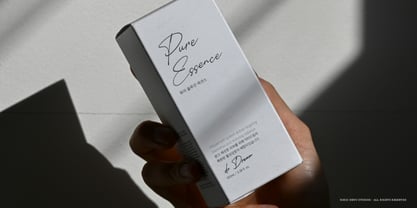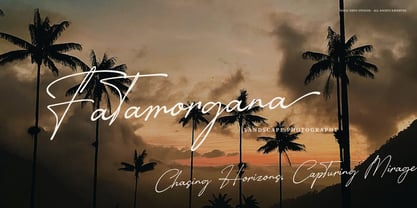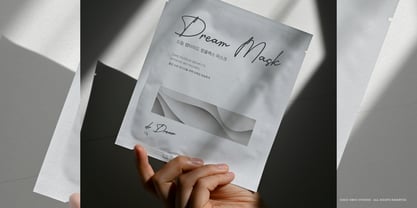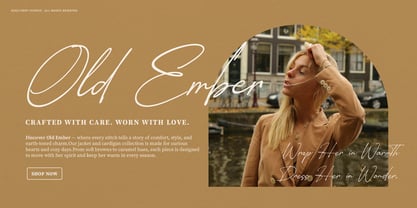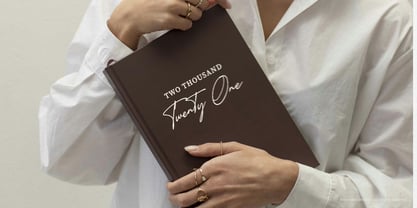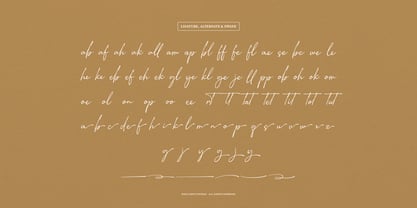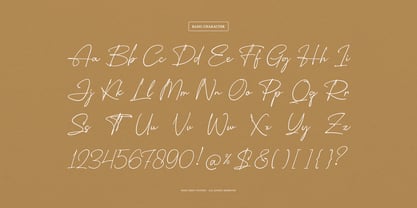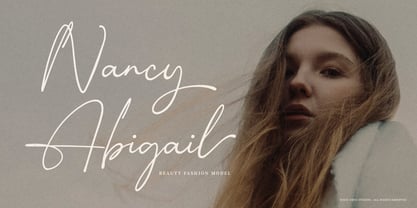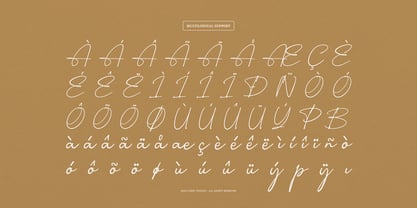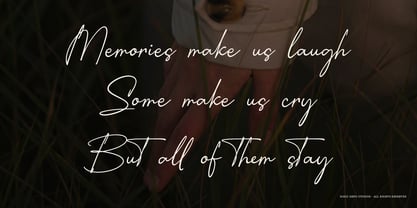
Defraney
by Denustudio
The Defraney Font Family was designed by Dede Nugraha and published by Denustudio. Defraney contains 2 styles and family package options. More about this family
Defraney | Handwritten Signature, from Denustudios, suitable for any projects such as: logos, branding projects, homeware designs, product packaging, mugs, quotes, posters, shopping bags, t-shirts, book covers, name card, invitation cards, greeting cards, label, photography, watermark, special events, and all your other lovely projects that need Handwritten Signature a taste.
• Regular and Italic
• Standard glyphs
• Alternate and Ligature